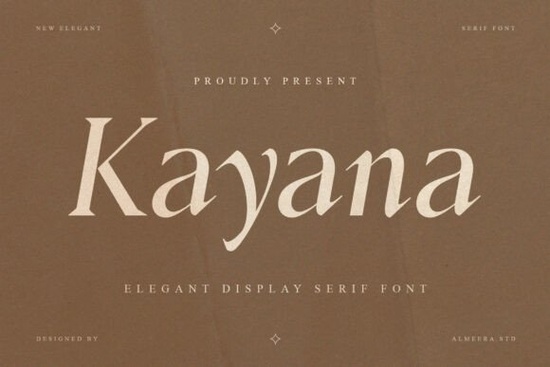
If you're searching for a serif font that feels both refined and modern, the Kayana font is worth a close look. It's a display serif with graceful curves, soft transitions, and high-contrast strokes that give text a polished, confident presence. Whether you're designing a logo, building a brand identity, or putting together wedding invitations, Kayana brings a sense of understated luxury without trying too hard.
What Makes the Kayana Font Stand Out?
Kayana isn't just another elegant serif on the market. The letterforms are carefully crafted with delicate details think refined serifs, balanced proportions, and subtle contrasts between thick and thin strokes. These elements work together to create a typeface that looks timeless but still feels fresh. It doesn't lean too traditional or too trendy, which makes it surprisingly versatile across different design contexts.
For designers who value thoughtful typography, Kayana offers features that matter:
- Uppercase and lowercase letterforms
- Ligatures and stylistic alternates for more creative control
- Multilingual support for international projects
- Numeral and punctuation included
- High-contrast elegant serif style optimized for large headlines and display use
Who Is This Serif Font Best For?
Kayana works well for a range of creative professionals and hobbyists. If you run a print-on-demand shop, this font pairs beautifully with quote designs, motivational prints, and premium-feel merchandise. Small business owners looking to build a cohesive brand from packaging to social media graphics will find it especially useful. It also fits naturally into editorial layouts, website headers, and high-end marketing materials.
Crafters and designers who sell on platforms like Etsy or Creative Market can use Kayana to create mockups, templates, and digital downloads that feel elevated. The font does a lot of visual heavy lifting on its own, so even simple compositions end up looking polished.
How Does Kayana Compare to Other Elegant Serifs?
Each of these fonts serves a different creative need, but Kayana sits in a sweet spot elegant enough for luxury branding, yet clean enough for modern digital layouts.
What Design Projects Work Well With Kayana?
Here are some practical ways to use this font:
- Logo design The distinctive serif details give logos a premium feel
- Wedding and event invitations The graceful curves add a romantic, sophisticated touch
- Packaging design Works especially well for beauty, fashion, and lifestyle brands
- Social media graphics Stands out in feed-style layouts and quote posts
- Website headers and hero sections Large-scale text looks especially striking
- Editorial and magazine layouts The contrast between thick and thin strokes adds visual rhythm